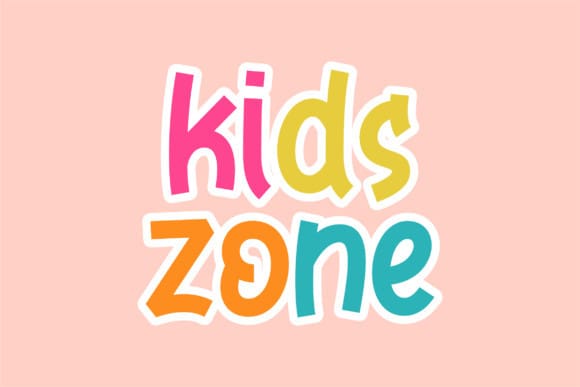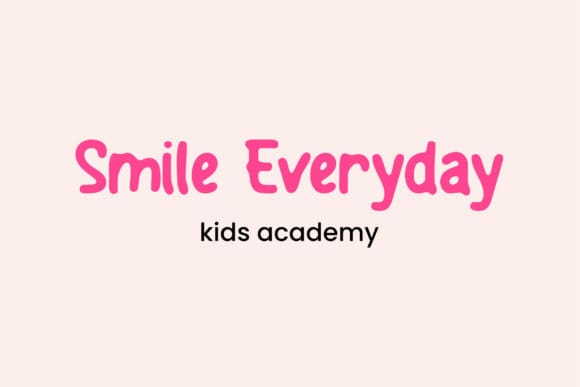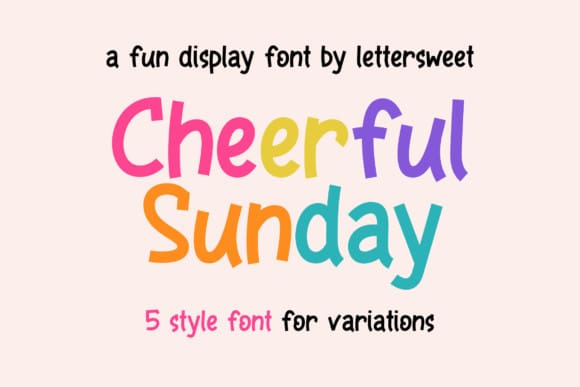
Cheerful Sunday Font
Cheerful Sunday Font is a fun and versatile display font that will add a touch of whimsy to any design project. With its five included styles, you can create everything from eye-catching headlines to adorable children’s book covers. Its casual, handwritten style gives off a friendly and approachable vibe, making it perfect for branding and marketing materials.